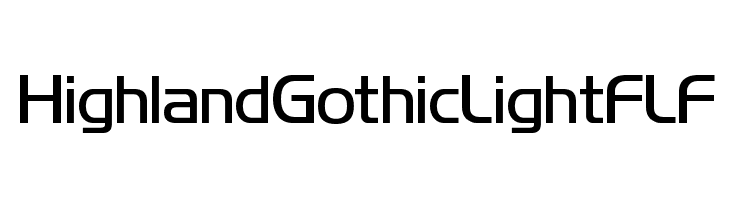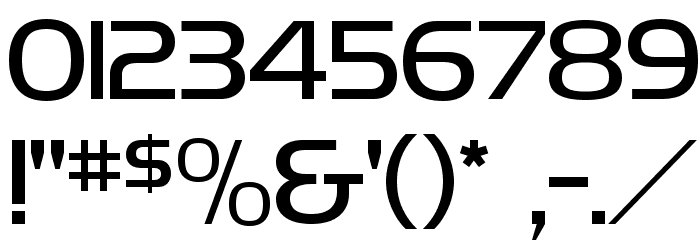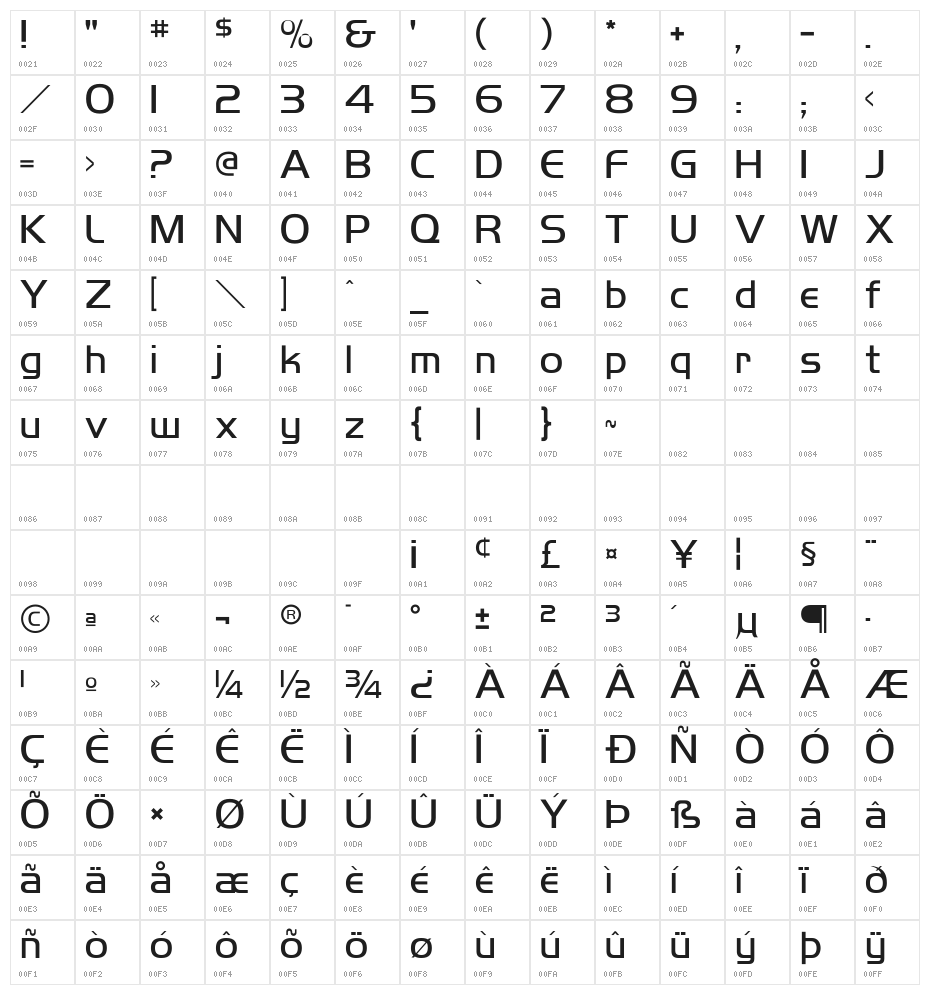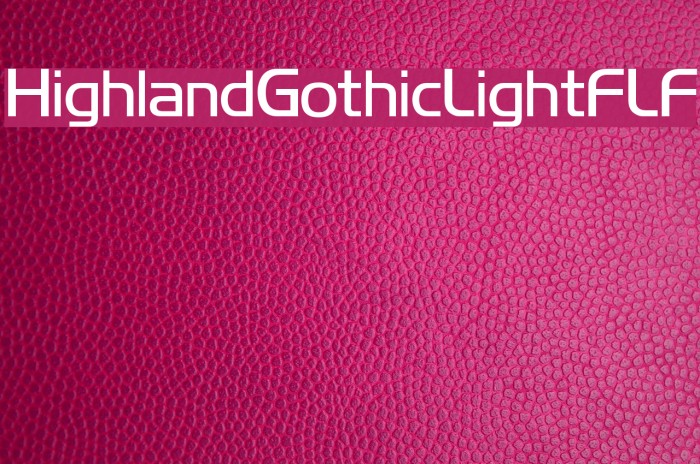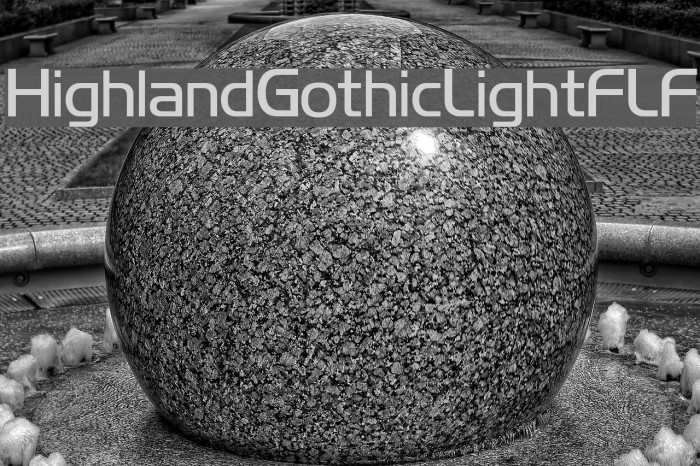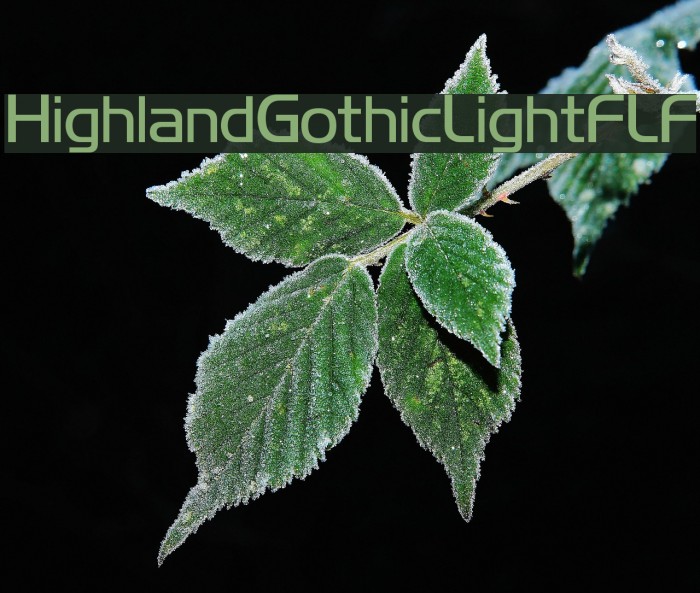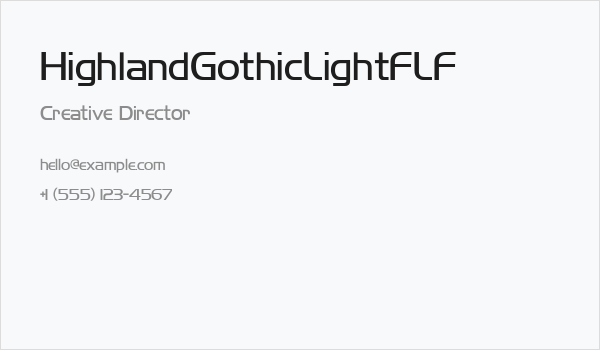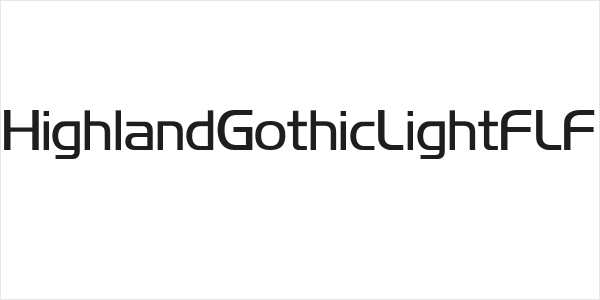
HighlandGothicLightFLF Font
HighlandGothicLightFLF Description
This font features a clean, geometric sans-serif style with a modern aesthetic. The characters are well-balanced with a uniform stroke width, giving it a sleek and contemporary appearance. The uppercase letters are bold and assertive, while the lowercase letters maintain a consistent and harmonious flow. The numerals are distinct and easily readable, making them suitable for various applications. Special characters are designed with the same attention to detail, ensuring they complement the overall style. The font's simplicity and clarity make it versatile for both digital and print media.
| Proposed Projects | Ideal for branding, advertising, web design, and editorial layouts. |